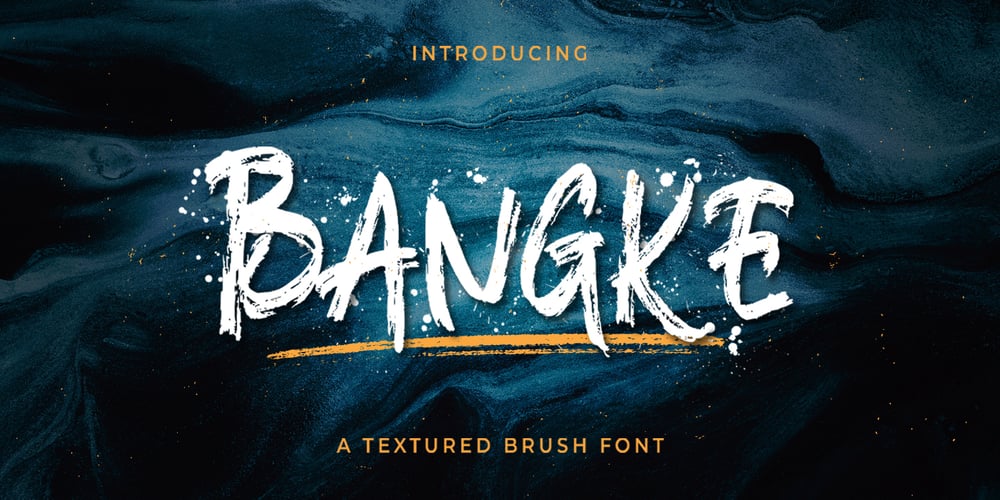
Bangke
Bangke font
Bangke Font Family was designed by Hilmius Akbar and published by Typefactory. Bangke contains 1 styles and family package options. Bangke is a textured brush font with rough and casual letters. It’s great for logos, branding, print projects and any attention drawing headline.